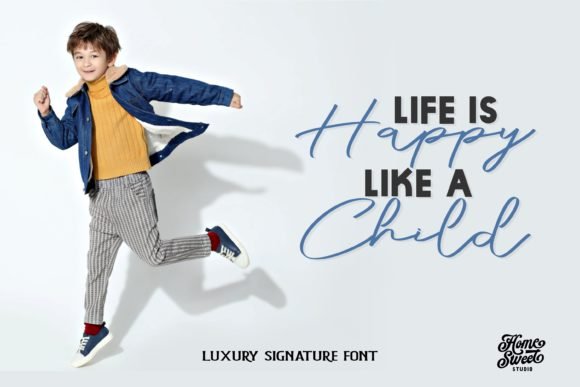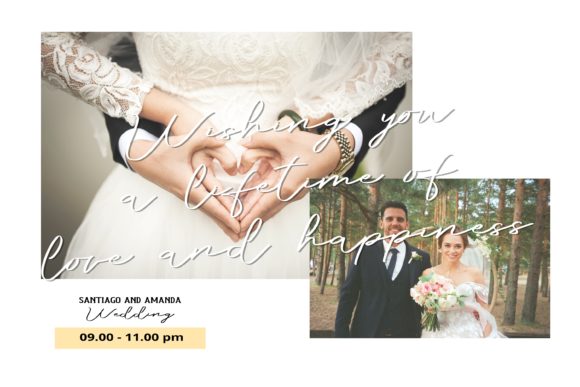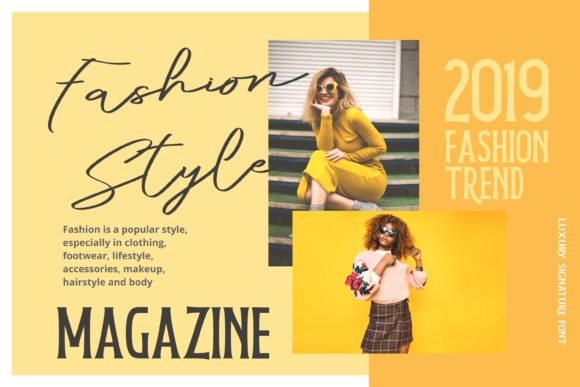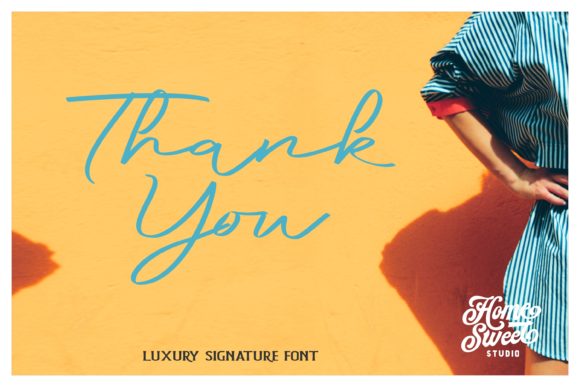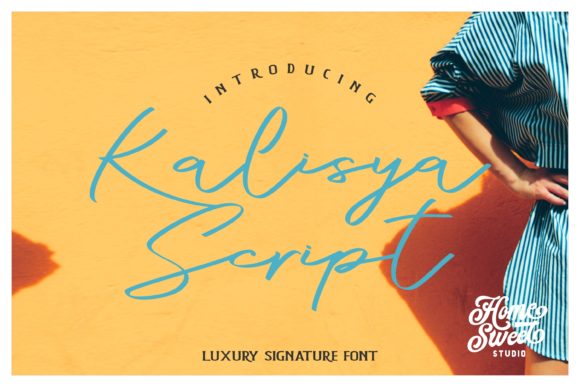
The Perfect Script for Your Next Design Project
Remember that moment when you’re brainstorming a new design project, and the perfect font suddenly pops into your head? For many designers, it’s a rush of excitement and inspiration that can make all the difference. Whether you’re working on a wedding invitation, a branding campaign, or a social media post, the right font can elevate your design and leave a lasting impression.
Enter Kalisya Script Font, a lovely and playful handwritten font that adds an undeniably modern feel to any design project. This beautiful script font is designed to bring a touch of elegance and sophistication to your work, making it a valuable addition to any designer’s toolkit. With its light, airy feel, Kalisya Script Font is perfect for creating eye-catching headings, beautiful typography, and stunning graphics that will leave your audience in awe.
Kalisya Script Font Key Features
- Font Family: Kalisya Script
- Unique Characteristics: Elegant, cursive script with high-end feel, ideal for invitations, wedding stationery, and other formal events
Kalisya Script Font Review
I recently had the chance to work with the Kalisya Script font, and I’m excited to share my honest review with you. ✨ One of the things I love about this font is its elegant and refined look. It’s perfect for creating a sophisticated and luxurious feel in your designs. The script style is well-executed, with beautiful connections between the letters and a consistent flow that makes it easy to read.
Another advantage of the Kalisya Script font is its versatility. ✨ It can be used for a wide range of projects, from wedding invitations to branding materials, and it looks great in both digital and print formats. The font also comes in multiple weights, which gives you a lot of flexibility when it comes to creating contrast and visual interest in your designs.
- ⚠️ The font may not be suitable for body text, as it can be quite ornate and difficult to read in larger blocks of text.
- ⚠️ The font is not as widely supported as some other script fonts, which can cause issues in older browsers or on certain operating systems.
Overall, I’m really impressed with the Kalisya Script font. It’s a beautiful and versatile font that can add a touch of elegance to any design project. While it may have some limitations, I think it’s definitely worth considering for your next project.
For the best results, use Kalisya Script Font in combination with a bold or cursive font for contrast.
Avoid using Kalisya Script Font for body text, as it’s best suited for headings and titles.
Kalisya Script Font is perfect for:
Birth announcements and baby shower invitations
Special occasion greeting cards and gift tags
Alternatives to Kalisya Script Font
Playfair Display is a luxurious and elegant script font, perfect for creating a sophisticated and high-end look. It’s ideal for use in wedding invitations, luxury branding, and fine art.
Compared to Kalisya Script Font, Playfair Display is more ornate and luxurious, making it a better choice for high-end designs. However, it may be more difficult to read in smaller font sizes due to its complex letterforms.
Great Vibes is a beautiful and modern script font, perfect for creating a warm and inviting atmosphere. It’s ideal for use in branding, packaging, and advertising.
Compared to Kalisya Script Font, Great Vibes is more modern and sleek, making it a better choice for contemporary designs. However, it may lack the elegance and sophistication of Kalisya Script Font.
Amarante
Amarante is a elegant and refined script font, perfect for creating a classic and timeless look. It’s ideal for use in luxury branding, fine art, and high-end publications.